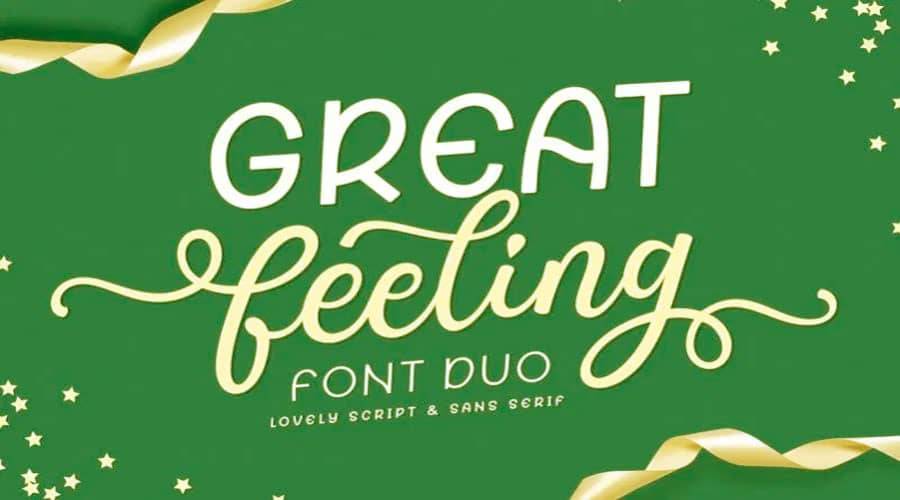
Great Feeling Script Font
Great Feeling Script Font is a stunning Script and Calligraphy font. Subectype & Orenari created and published the Font on March 2, 2020.
Great Feeling Script Font is a font twosome made up of fabulous script fonts and flashy sans serif fonts that are coupled together. The Font includes Great Mood Script, which has a good amount of alternates and ligatures, and Great Feeling Sans, which has a fancy style. This Font is PERSONAL USE ONLY! The Font has a remarkable quality that it is applicable with almost every colour. This beautiful Script and Calligraphy font manages to look with every colour. The audience will instantly connect with the project that is done with the touch of the Great Feeling Script Font.
Great Feeling Script Font is an excellent choice for a logo, garments, headline, marriage proposal, poster, clothing, product placement, and a variety of other uses.
| Name | Great Feeling Script Font |
| Style | Script, Calligraphy |
| Designer | Subectype & Orenari |